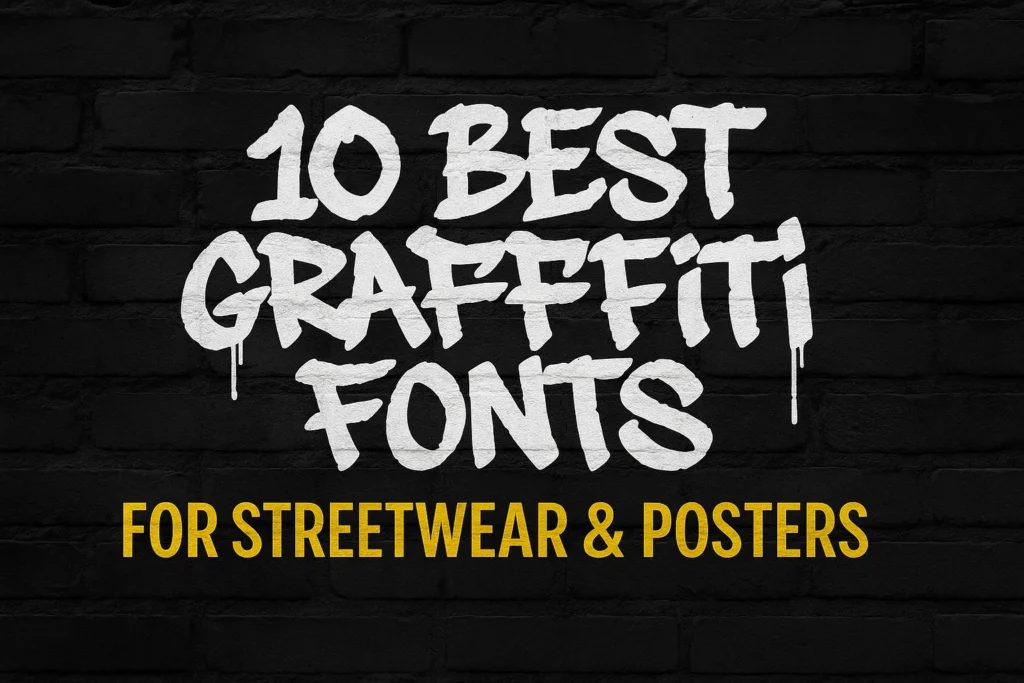
10 Best Graffiti Fonts for Streetwear & Posters
Why Graffiti Style Is Powerful
Graffiti is more than just street scribbles — it’s a bold form of art that carries energy, rebellion, and identity. In design, the best graffiti fonts can bring an urban vibe to life, making them perfect for streetwear, music posters, and edgy branding.
Criteria for Choosing Graffiti Fonts
Before you pick, here are a few things to consider:
- Style: Match the font to your project (streetwear, concert poster, product packaging, etc).
- Readability: Even bold or distorted graffiti fonts should remain legible.
- Flexibility: Suitable for logos, headlines, or promotional materials.
10 Best Graffiti Font Recommendations
- Overals – Street Tags Graffiti Font
Authentic street tag vibes, perfect for logos and apparel branding. - Street Breaker – Urban Graffiti Font
Bold and energetic, ideal for music event posters and digital murals. - Block Buster – Urban Graffiti Font
Chunky and powerful, great for streetwear branding and packaging. - Crazy Blocks – Bold Display Font
Quirky and playful with a retro-modern feel, perfect for eye-catching designs. - Thrashlane – Street Brush Font
Raw brush strokes with punk energy, excellent for thrash metal, skate, or street posters. - Rexover – Crossover Hardcore Font
Aggressive and hardcore, best for band artwork and street merchandise. - Wyshper – Punk Hardcore Font
Rebellious and bold, perfect for gig posters and underground zines. - Munderic Godas – Death Metal Font
Extreme and experimental, great for metal branding and dark visuals. - Dreamfire – Death Metal Font
Gothic-inspired with mysterious vibes, perfect for album covers and concert posters. - Majisora Tenshei – Japanese Graffiti Font
A unique fusion of graffiti and Japanese style, perfect for modern streetwear.